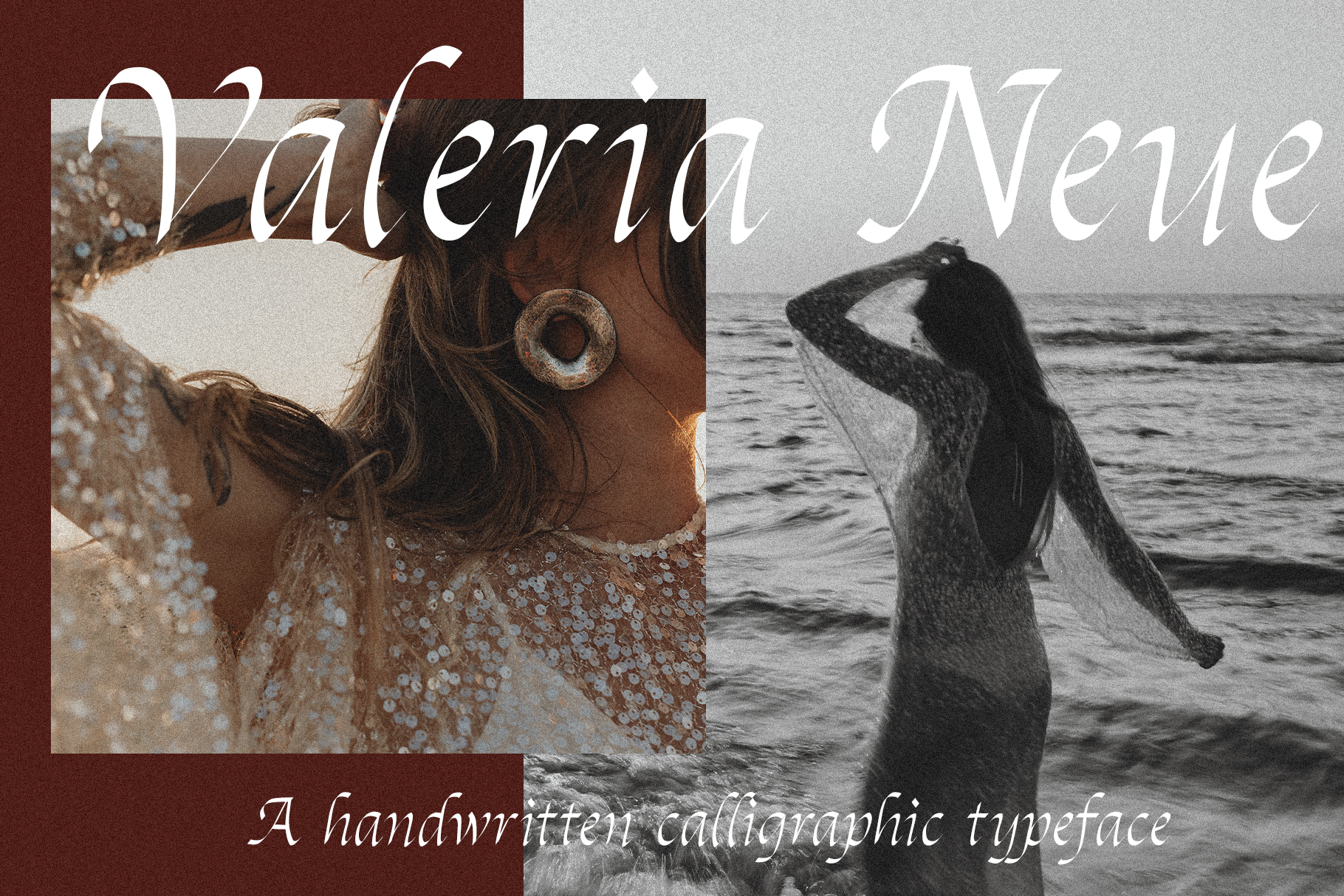
Valeria Neue | Calligraphic Font
Valeria Neue™ is a hand-drawn calligraphic typeface designed for posters, social graphics, brand identities and more designed by Kelsey Kleiner here at OneTen.
Valeria Neue™ includes uppercase, lowercase 0-9, basic punctuation, and is multilingual.